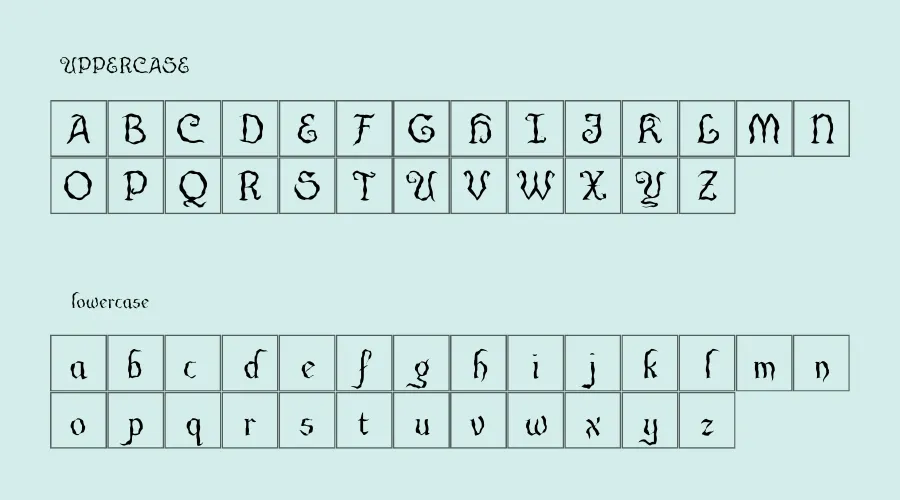
About Cuthbe Nick Font
The Cuthbe Nick Font is a cute and eye-catching texture that is under the category of the movie texture family. This font was created by a well-known graphic designer named Dan P. Lyons and is available in both OpenType and TrueType file formats.
You may easily utilize the online generator tool of this typeface and convert all your typical type of alphabet characters into stylish and modern shapes. After it was published in the font world, it gained so much popularity due to its stunning texture. It is the perfect choice for CSS and adobe photoshops.
It contains various types of characters such as uppercase letters, numerals, digits, symbols, and many more. The subfamily of this typeface is regular and has both file formats OTF and TTF. You can utilize this font easily with citizen dick font and make awesome projects.